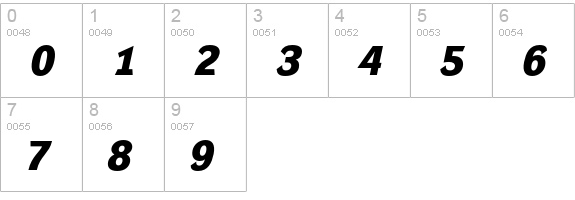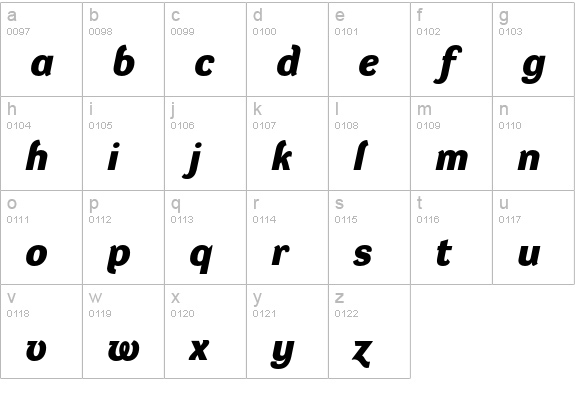
Dynamo Italic B E is a distinctive, italic variant in the Dynamo typeface family \xE2\x80\x94 well suited to design and typography projects.
Dynamo Italic B E is a modern and stylish font that exudes elegance and sophistication. Its sleek italic design adds a touch of flair to any project, making it perfect for creating eye-catching designs. This versatile font is ideal for use in a variety of applications, from branding and advertising to web design and social media graphics. Best of all, Dynamo Italic B E is available for free download at FontsMarket.com. You can easily add this beautiful font to your collection and start using it in your projects right away. With its clean lines and contemporary feel, Dynamo Italic B E is sure to make a lasting impression on your audience. Download it today and unleash your creativity with this stunning font!